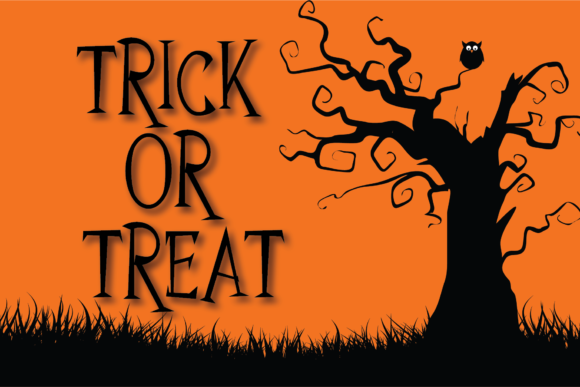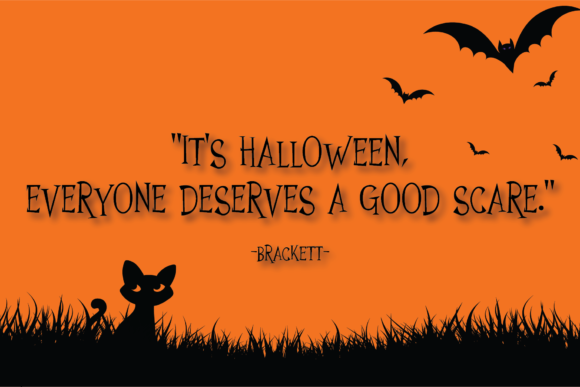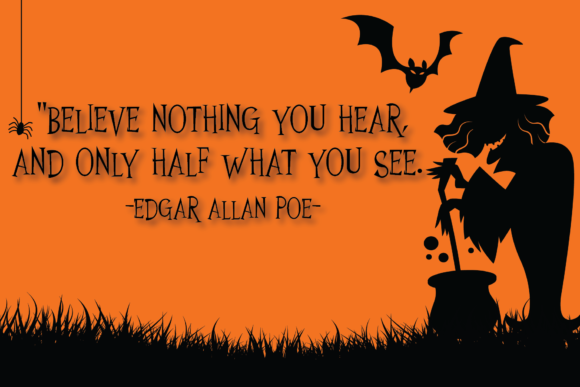
Happy Halloween Font: The Spooky yet Fun Lettering for Your Halloween Projects
Are you looking for a font that captures the essence of Halloween? A font that’s both spooky and fun, perfect for your Halloween-related projects or crafty ideas? Look no further than the Happy Halloween Font! This fun-lettered and spooky display font is designed to add a touch of Halloween magic to your designs, and we’re excited to dive into its features and uses.
What is Happy Halloween Font?
Happy Halloween Font is a unique and creative typeface that’s specifically designed for Halloween-themed projects. Its fun and spooky lettering style makes it perfect for a wide range of applications, from party invitations and decorations to social media graphics and craft projects. The font’s playful and eerie feel is sure to capture the attention of your audience and add a festive touch to your designs.
Key Features of Happy Halloween Font
- Fun-lettered and spooky display font: Happy Halloween Font features a distinctive and eye-catching design that’s perfect for making a statement.
- Perfectly suitable for Halloween-related projects: Whether you’re working on a Halloween party invitation, a spooky decoration, or a craft project, this font is the ideal choice.
- Limited only by your imagination: With Happy Halloween Font, you can create a wide range of designs, from cute and playful to spooky and eerie.
Uses of Happy Halloween Font
Happy Halloween Font is a versatile typeface that can be used in a variety of projects, including:
- Party invitations: Create spooky and fun invitations for your Halloween party that will set the tone for a howling good time.
- Decorations: Use Happy Halloween Font to create festive decorations, such as banners, garlands, and signs.
- Social media graphics: Add a touch of Halloween magic to your social media posts and stories with this fun and spooky font.
- Craft projects: Happy Halloween Font is perfect for craft projects, such as making Halloween cards, gift tags, and other DIY decorations.
Tips for Using Happy Halloween Font
To get the most out of Happy Halloween Font, here are some tips to keep in mind:
- Experiment with different colors: Try pairing Happy Halloween Font with different colors to create a unique and eye-catching design.
- Play with font sizes: Use different font sizes to create visual interest and add emphasis to certain words or phrases.
- Add graphics and illustrations: Combine Happy Halloween Font with spooky graphics and illustrations to create a cohesive and festive design.
Happy Halloween Font is a fun and spooky display font that’s perfect for adding a touch of Halloween magic to your designs. With its unique and creative lettering style, this font is sure to capture the attention of your audience and make your Halloween-related projects stand out. So why wait? Get creative with Happy Halloween Font and let your imagination run wild!